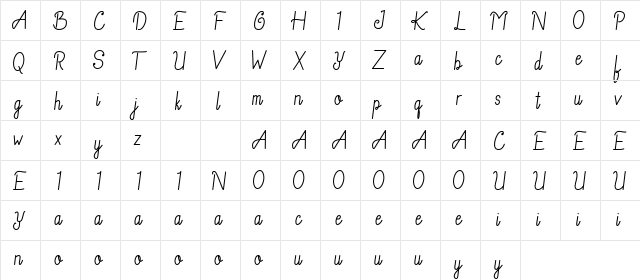
Helendia Script
| Style | Script |
| Designer | AmruID |
Design Context for Helendia Typeface
Helendia brings a calligraphic fluidity to the page — its connecting strokes and expressive curves give it an unmistakably human quality.
Font Pairing: Combine Helendia with a simple geometric sans for maximum contrast — the tension between flowing curves and clean structure is a classic typographic pairing.
Pro Tip: Use Helendia for short runs of text — names, titles, or taglines. Extended body copy in script faces tires the eye quickly.